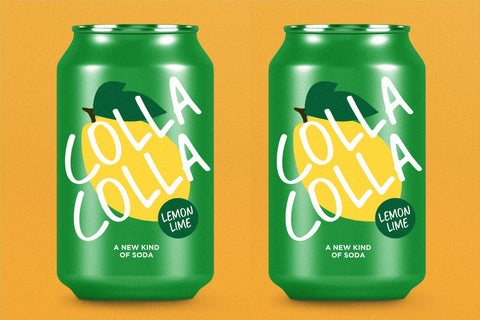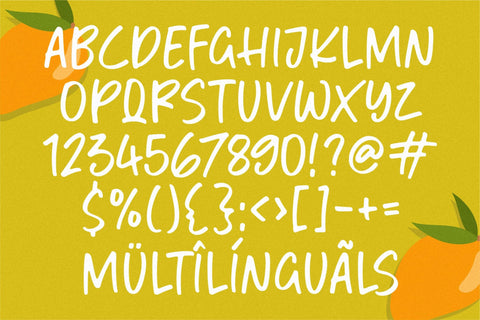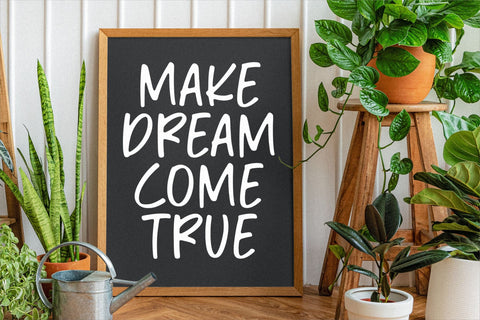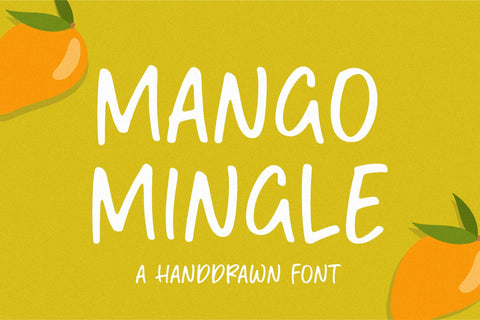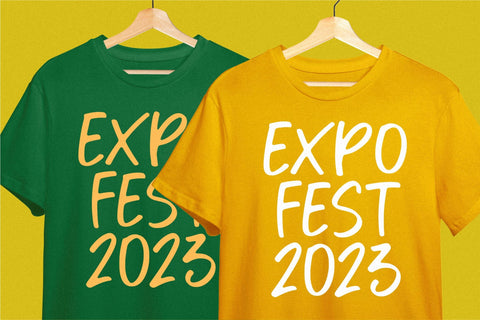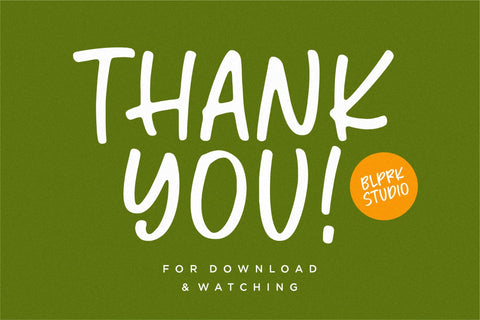
Mango Mingle Font
Mango Mingle is a Handdrawn Font.
Whether you’re using it for crafts, digital design, presentations, or making greeting cards, this font has the potential to become your favorite go-to font, no matter the occasion!
This font only has allcaps letters.